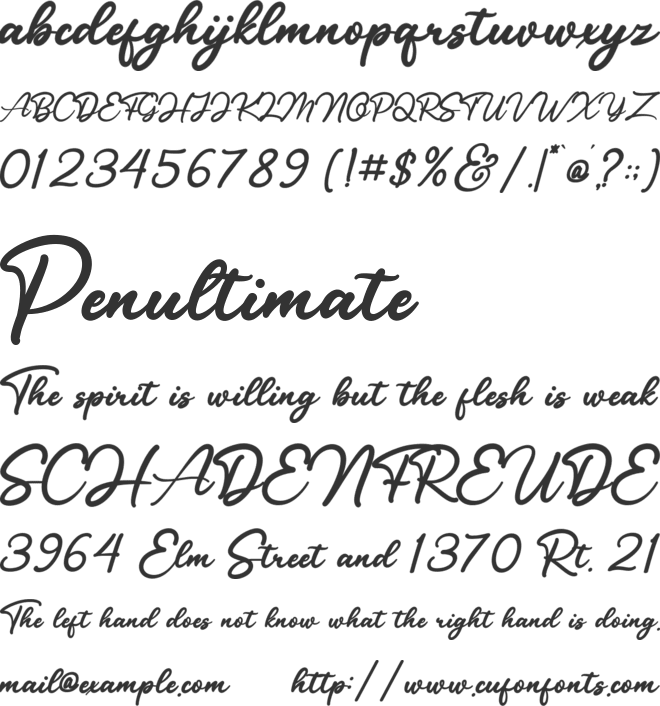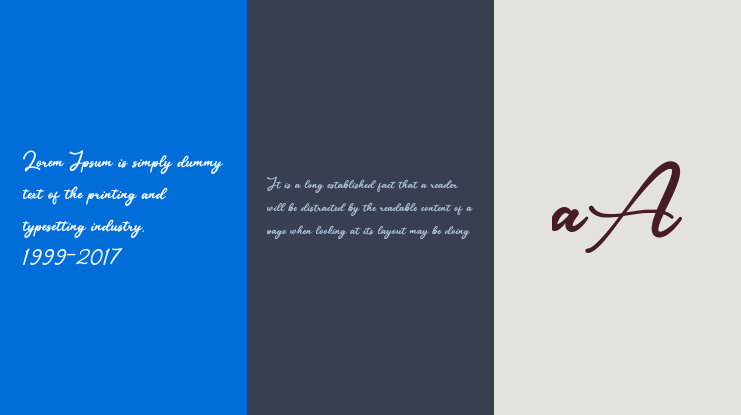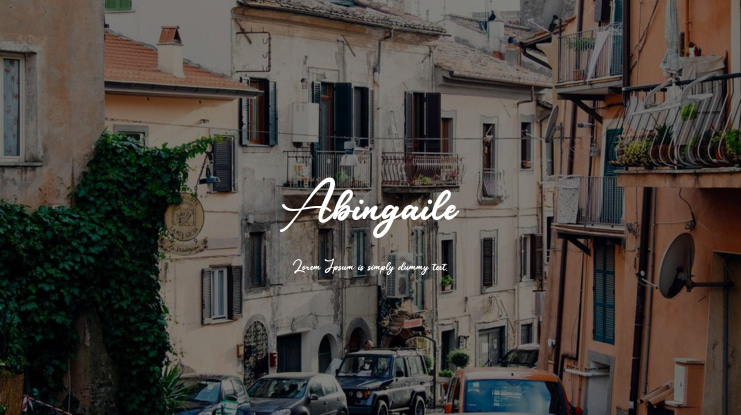
Abingaile Font
**Abingaile Handwritten Font**
Created with natural elegance and precision, this font is perfect for branding, websites, and editorial designs.